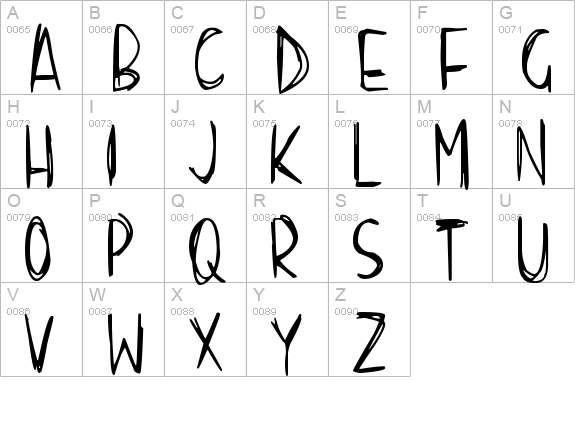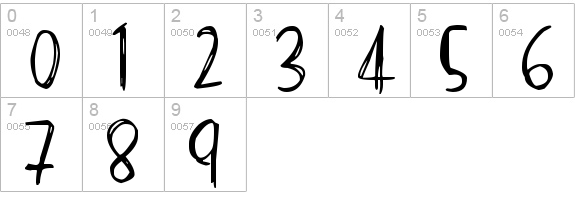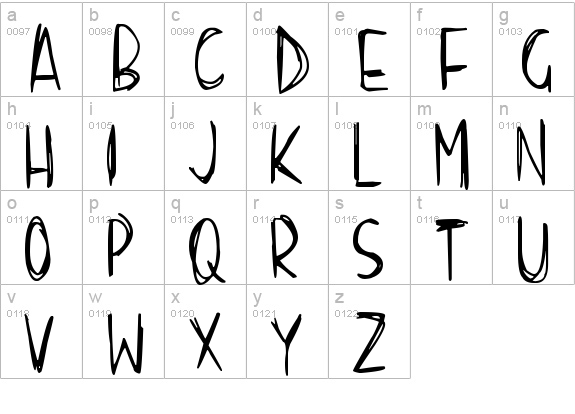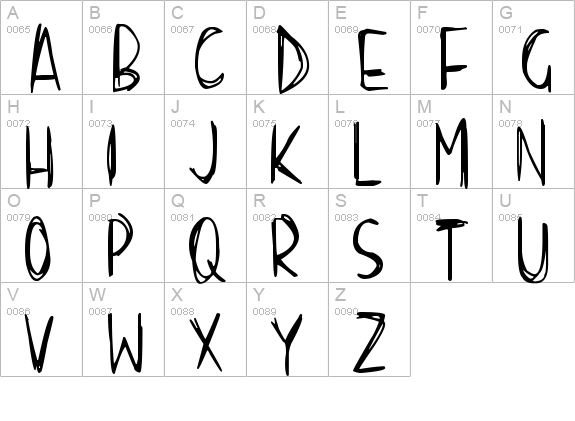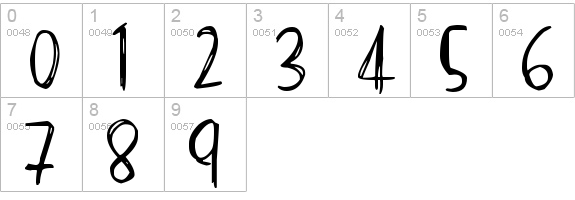
Scraggly is a free for personal use font in the Script category, designed by Darrell Flood. It has been downloaded 56 times and is available for Windows, Mac and Linux.
Scraggly font is a charming and whimsical typeface that adds a touch of playful elegance to any design project. With its uneven lines and quirky details, this font exudes a sense of creativity and individuality. Perfect for adding a unique and handcrafted feel to invitations, posters, packaging, and more, Scraggly font is sure to make your designs stand out.